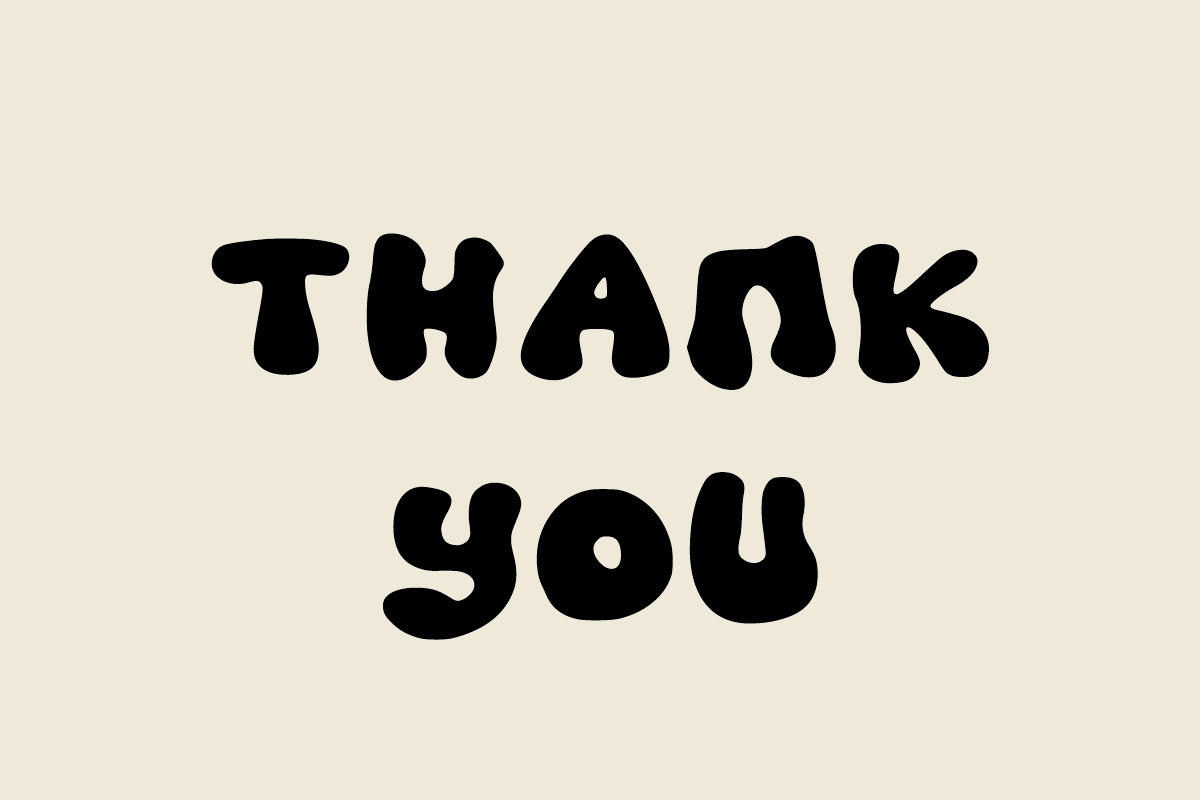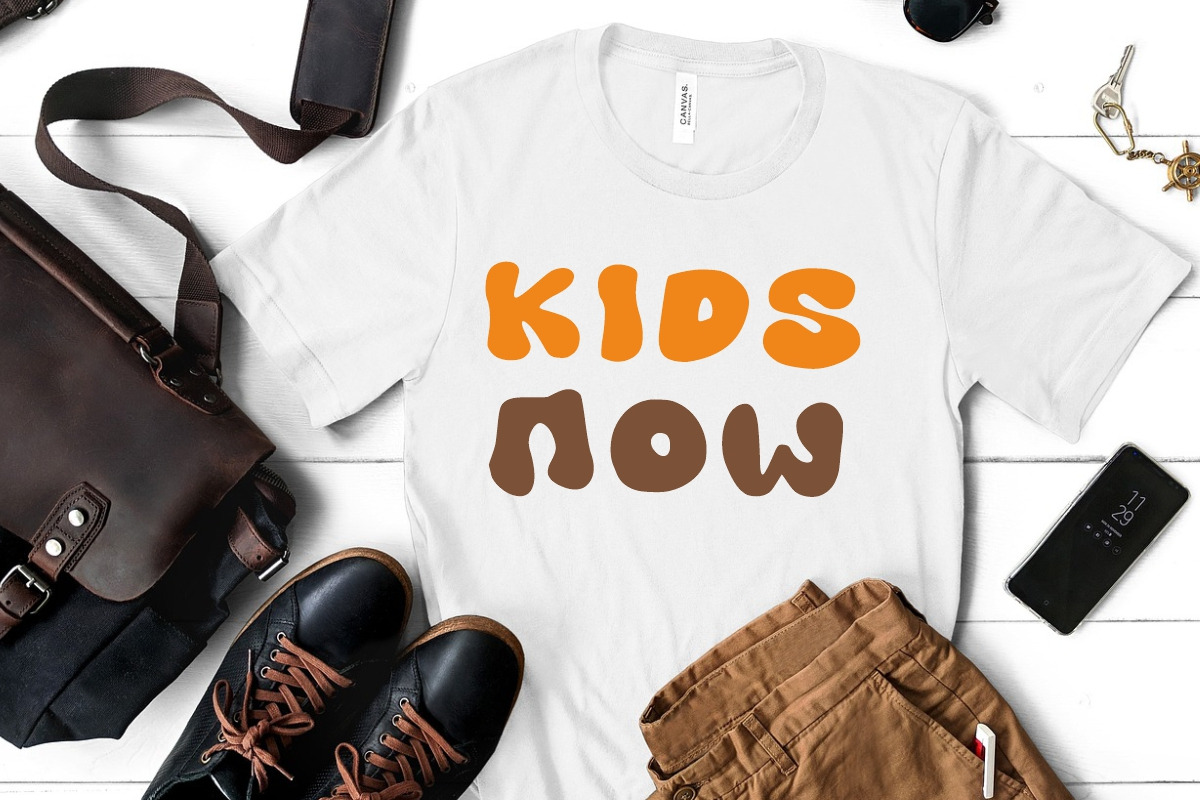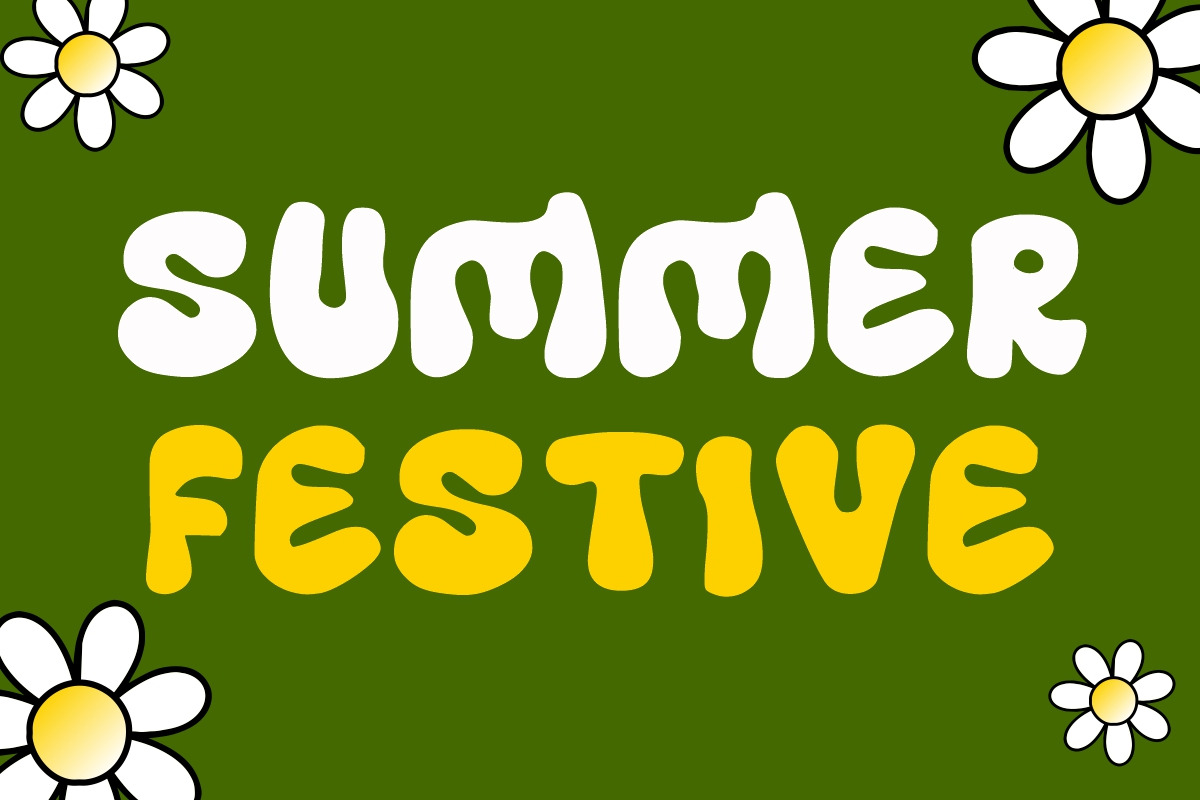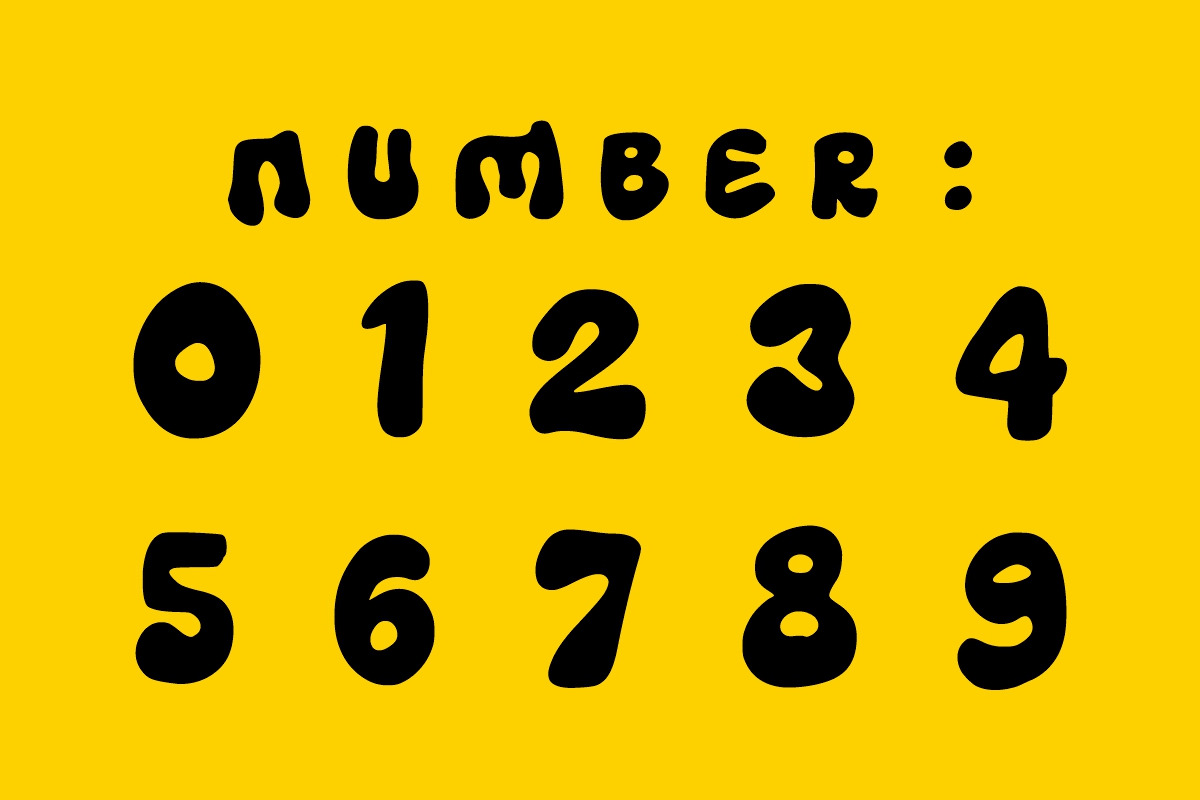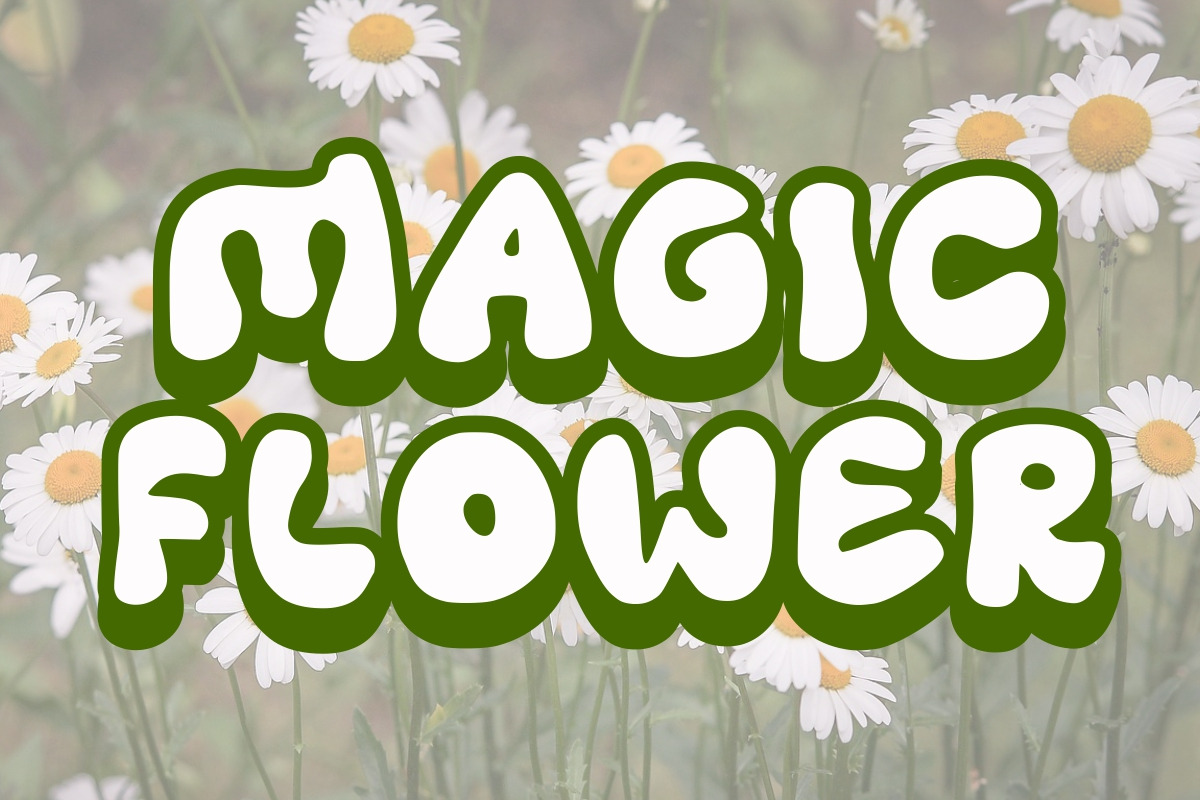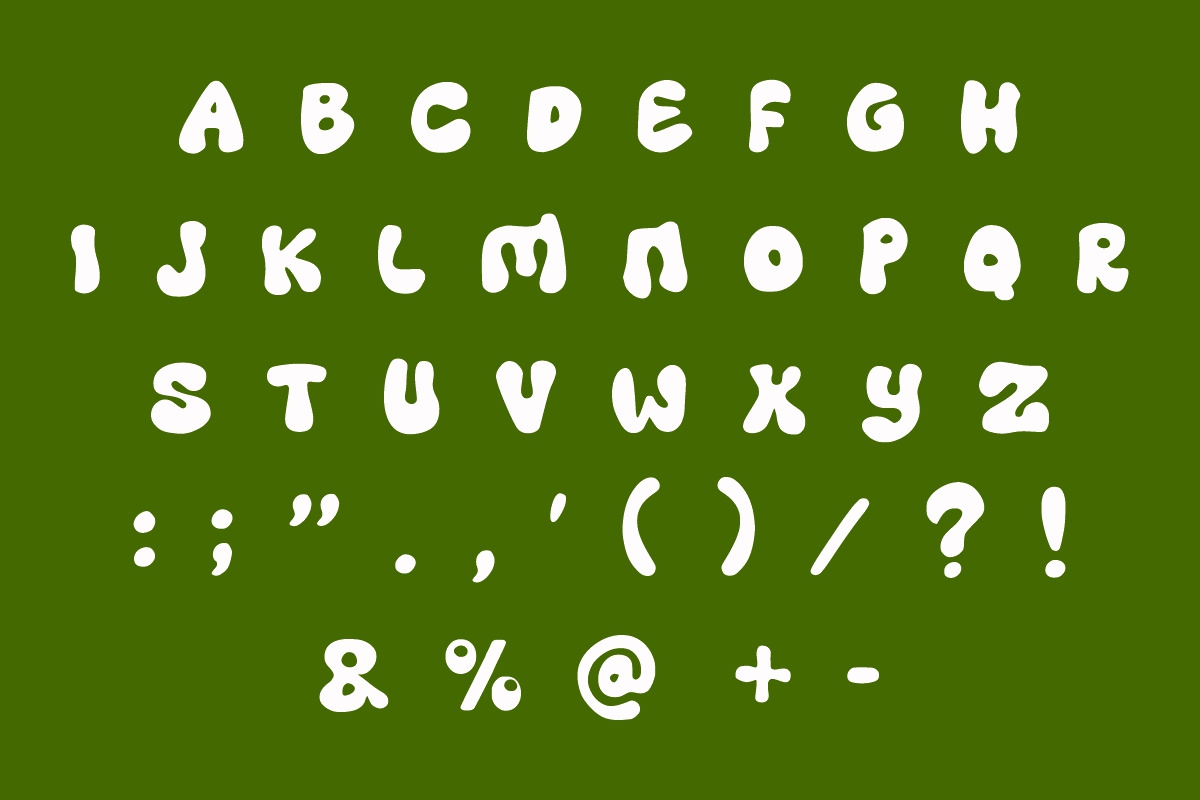
Groovy Daisy
GROOVY DAISY is a vintage font and bold-looking display font. It features a dynamic effect and a unique charm. It is perfect for headlines, sporting events, automotive posters, school posters, text effects, templates, logos, or monogrammed designs.